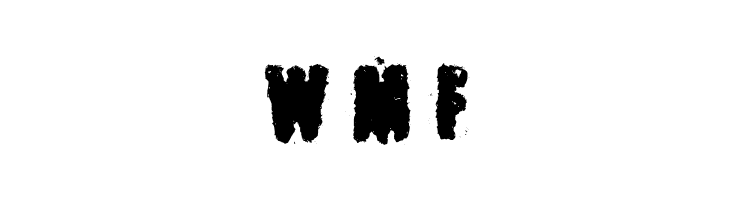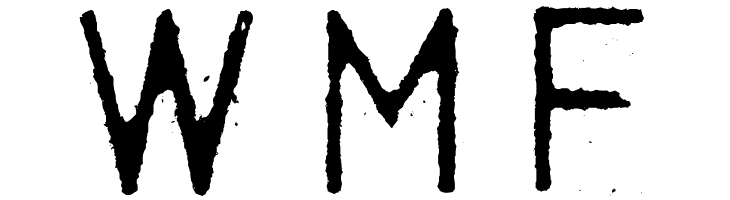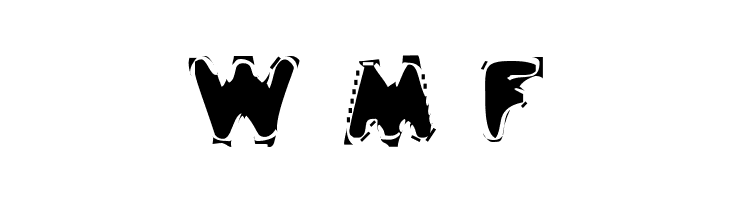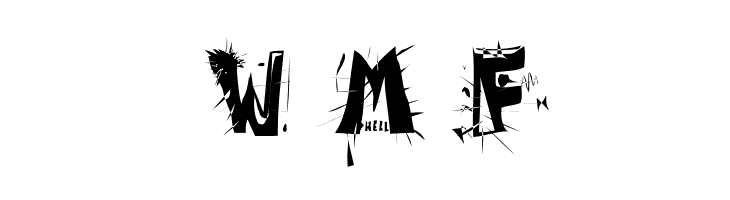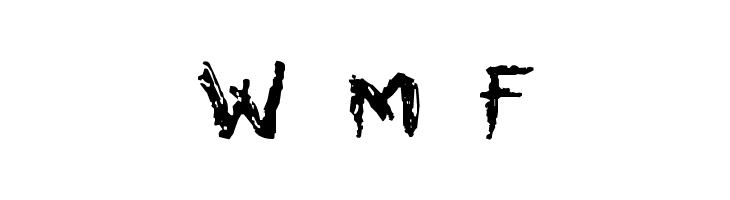
A decorative font with intricate cut-out patterns and a bold, artistic style.
A bold, distressed font with a grungy, textured appearance.
A distressed, grunge-style font with a vintage, textured appearance.
A futuristic, geometric font with bold, angular letterforms.
A bold, playful font with irregular, wavy outlines and a hand-drawn feel.
A bold, chaotic display font with a punk rock aesthetic and distressed look.
A distressed, grungy font with bold, textured characters.
A bold, playful font with an organic, hand-drawn style.
A bold, decorative font with distorted and artistic letterforms.